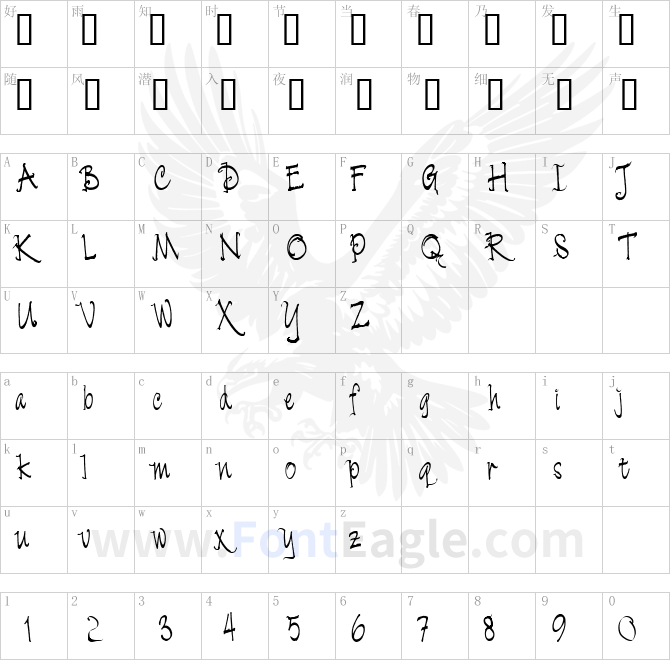
Cratch is a great font, widely used in graphic design, single-page menu design, poster design and other fields, and is deeply loved by designers.Cratch download.